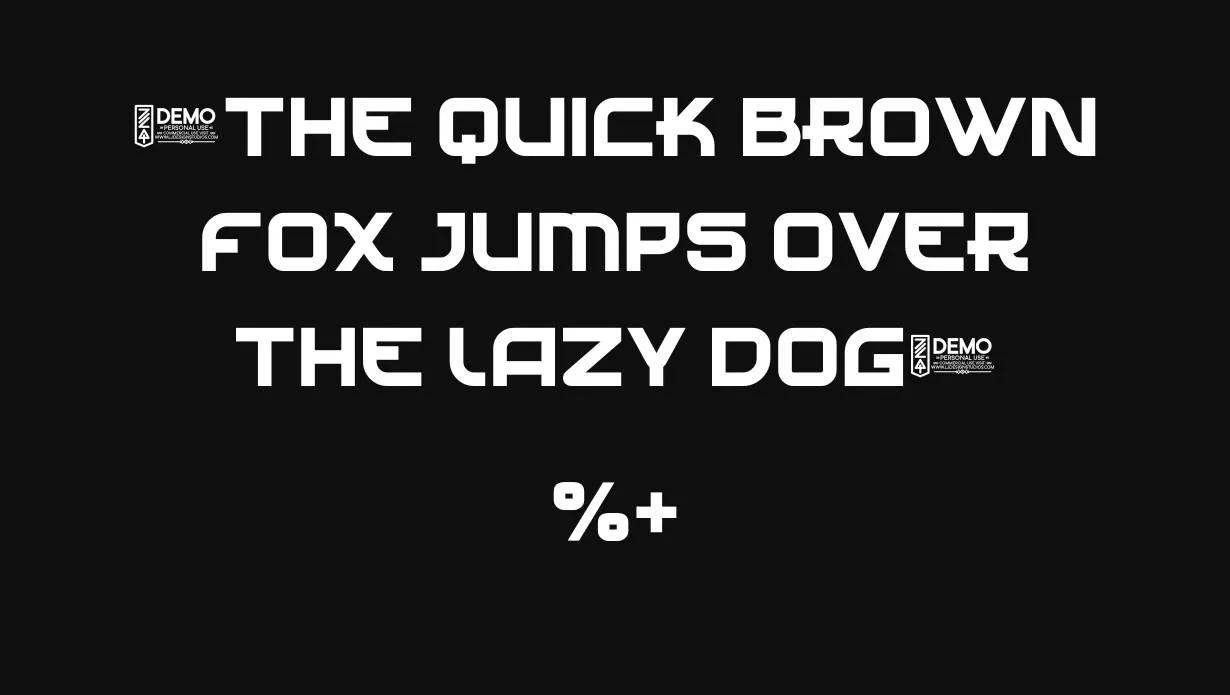
Zilap Destiny is a very stylish and modern typeface that was designed by Luis Jaramillo and manufactured by LJ Designs Studios. It has a very attractive look and you can use it for making all personal and commercial projects.
It is a display type Sans-Serif Font and it is good for both print and digital media.